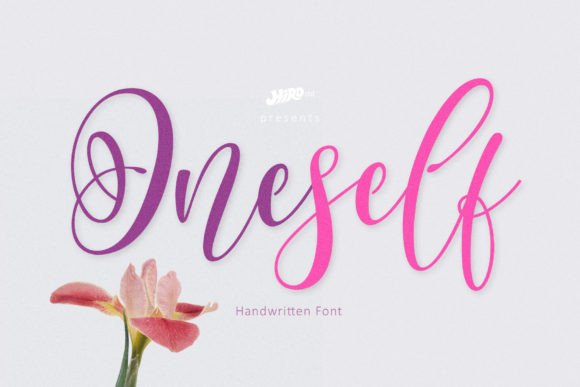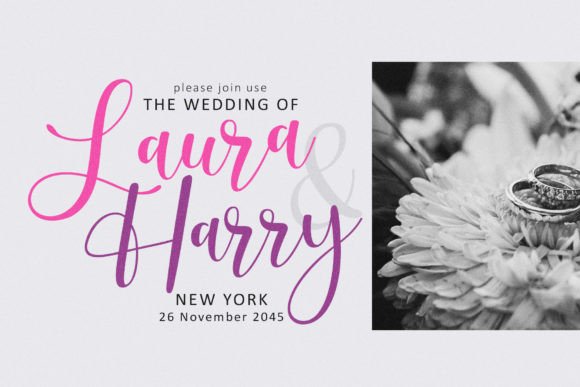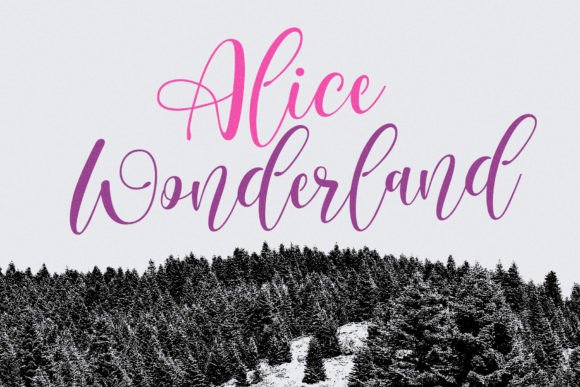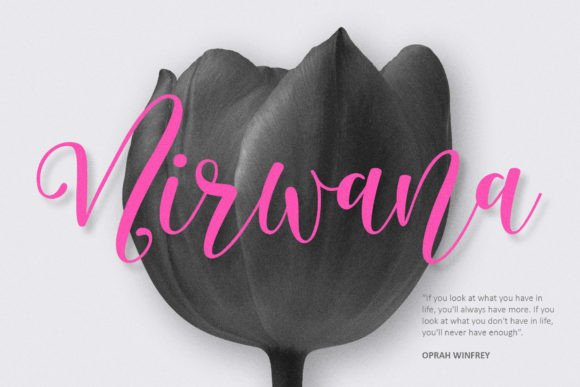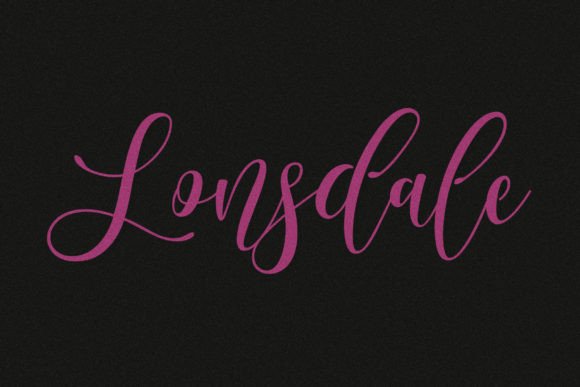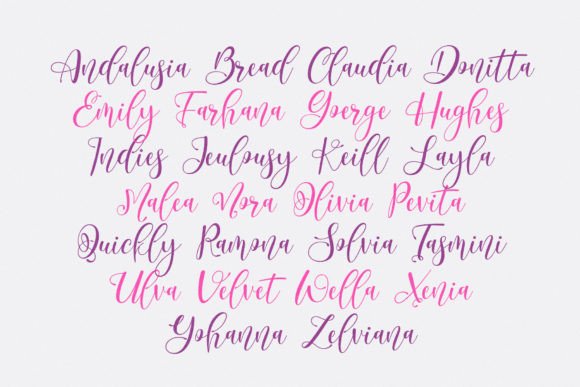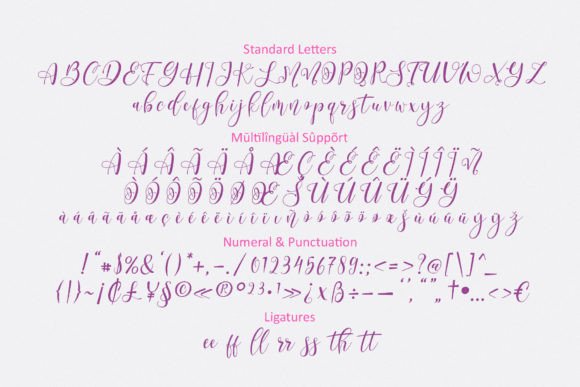
Oneself feels equally charming and elegant. It looks stunning on wedding invitations, thank you cards, quotes, greeting cards, logos, business cards, and every other design which needs a handwritten touch.
Oneself Font